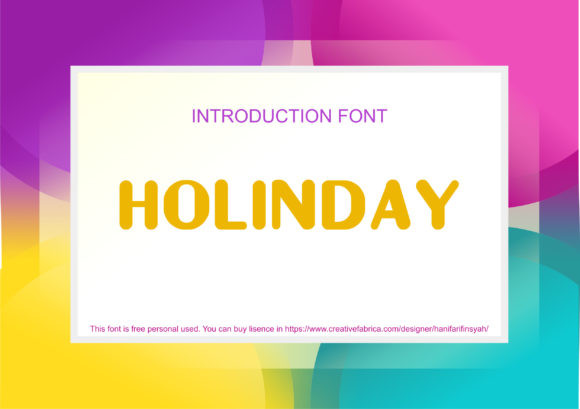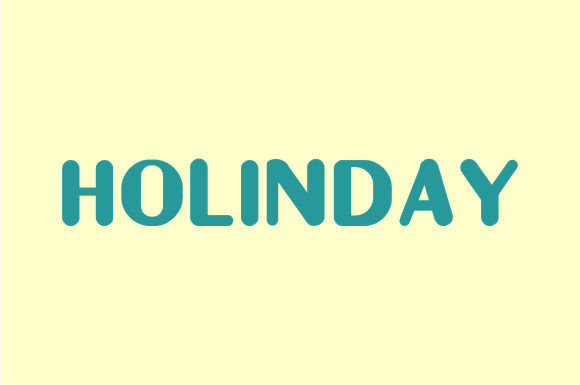
Holinday font
Holinday Font
Holinday is a fun and beautiful sans serif font with a unique feel. It will allow you to create eye-catching crafts in an instant